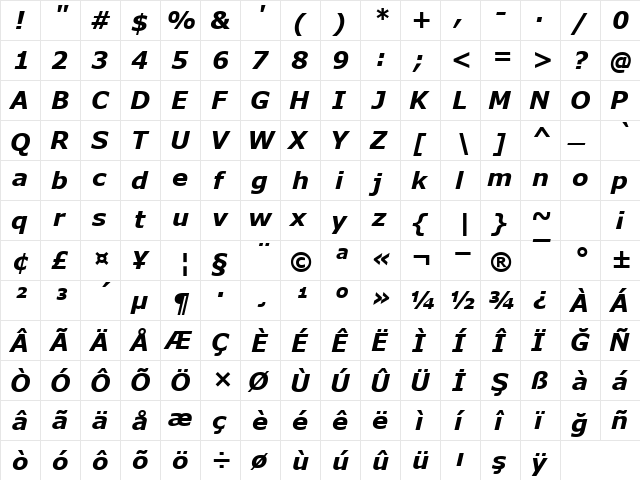
Verdana Digiscream Bold Italic
Design Context for Verdana Digiscream Typeface
Verdana Digiscream offers clean, dependable letterforms without strong stylistic allegiance, making it a practical choice for designers who need flexibility. The slanted form adds forward momentum and visual energy. The heavy weight commands attention and anchors typographic hierarchies.
Pro Tip: Use Verdana Digiscream for emphasis, pull quotes, and subheadings where its slanted energy can add rhythm to the layout.